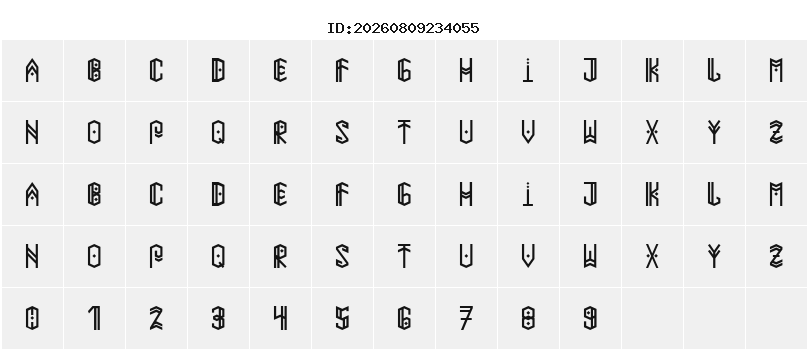
Paihuen Mapuche.ttf is a modern, elegant sans-serif font designed for ultimate readability and visual harmony. Perfect for branding, headlines, web design, and print materials.